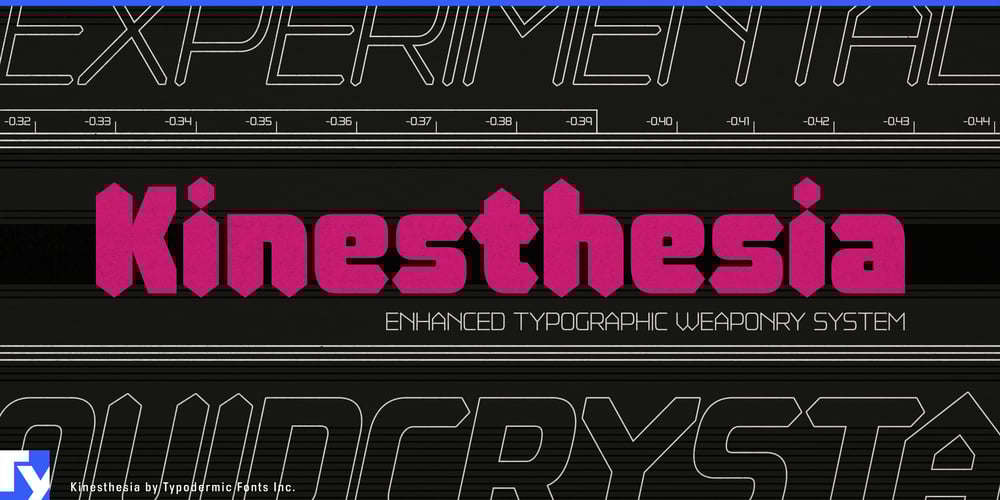
Kinesthesia Font Family was designed by Ray Larabie and published by Typodermic. Kinesthesia contains 14 styles and family package options. Kinesthesia: where digital nostalgia meets cutting-edge design. Born from an unwavering passion for segmented LCDs, this typeface is a love letter to the crisp, angular aesthetics of vintage digital technology. Every curve and point in Kinesthesia’s design echoes the mesmerizing glow of those early electronic readouts, reimagined for the modern age.This hypermodern typeface doesn’t just mimic liquid crystal displays—it elevates them. With sharp diamond points and hi-tech letterforms, Kinesthesia infuses your designs with a cool, technical tone that’s impossible to ignore. From sleek websites to bold logos, it lends an unmistakable edge to any project, capturing the essence of digital precision in every character. Kinesthesia’s versatility is unmatched. It boasts an impressive array of monetary symbols, numeric ordinals, primes, and OpenType fractions—all crafted with the same meticulous attention to detail. Whether you’re crunching numbers for a financial report or designing a futuristic interface, Kinesthesia speaks the language of data with fluency and style.Available in seven weights—from Ultra-Light to Heavy—each with accompanying obliques, Kinesthesia offers a spectrum of options to fine-tune your visual message. This range allows you to dial in the perfect balance of readability and impact, ensuring your design stands out in any context. But Kinesthesia’s brilliance doesn’t stop at Latin characters. It seamlessly integrates support for a vast array of Latin-based European writing systems. From the frosty fjords of Iceland to the sun-drenched coasts of Portugal, Kinesthesia communicates with crystal clarity across borders and cultures. Its extensive linguistic reach transforms it from a mere typeface into a global design tool, bridging language gaps with its universal digital aesthetic.Ready to illuminate your next project with the glow of digital nostalgia? Choose Kinesthesia. It’s a time-traveling design instrument that connects the pixelated past with the high-resolution future. Let Kinesthesia power up your designs and watch as your message radiates with unmistakable digital charisma.